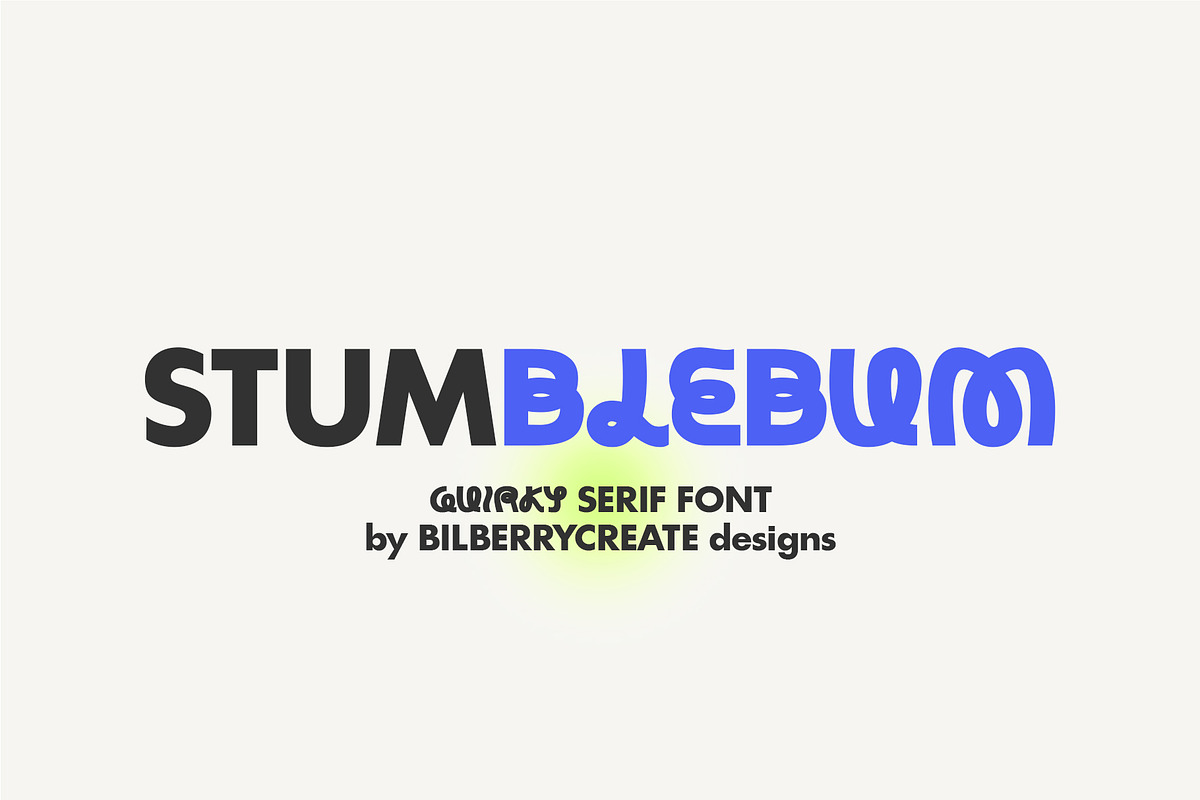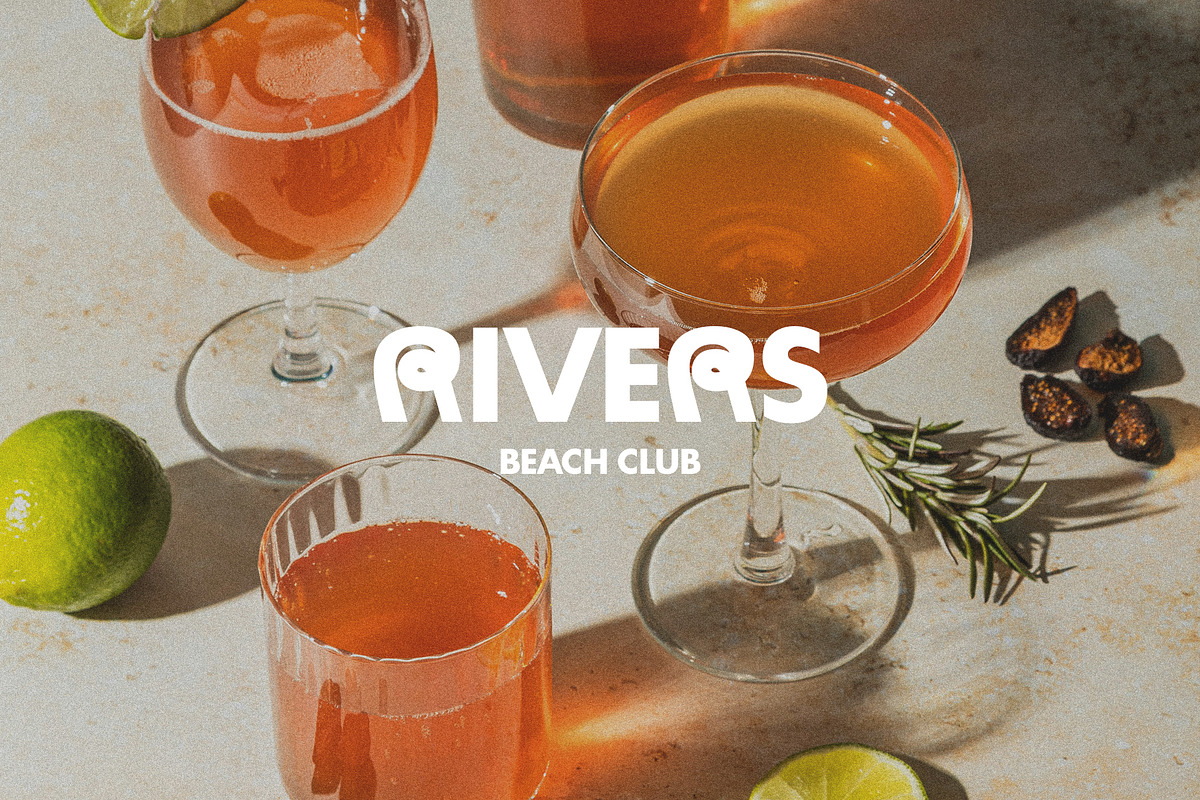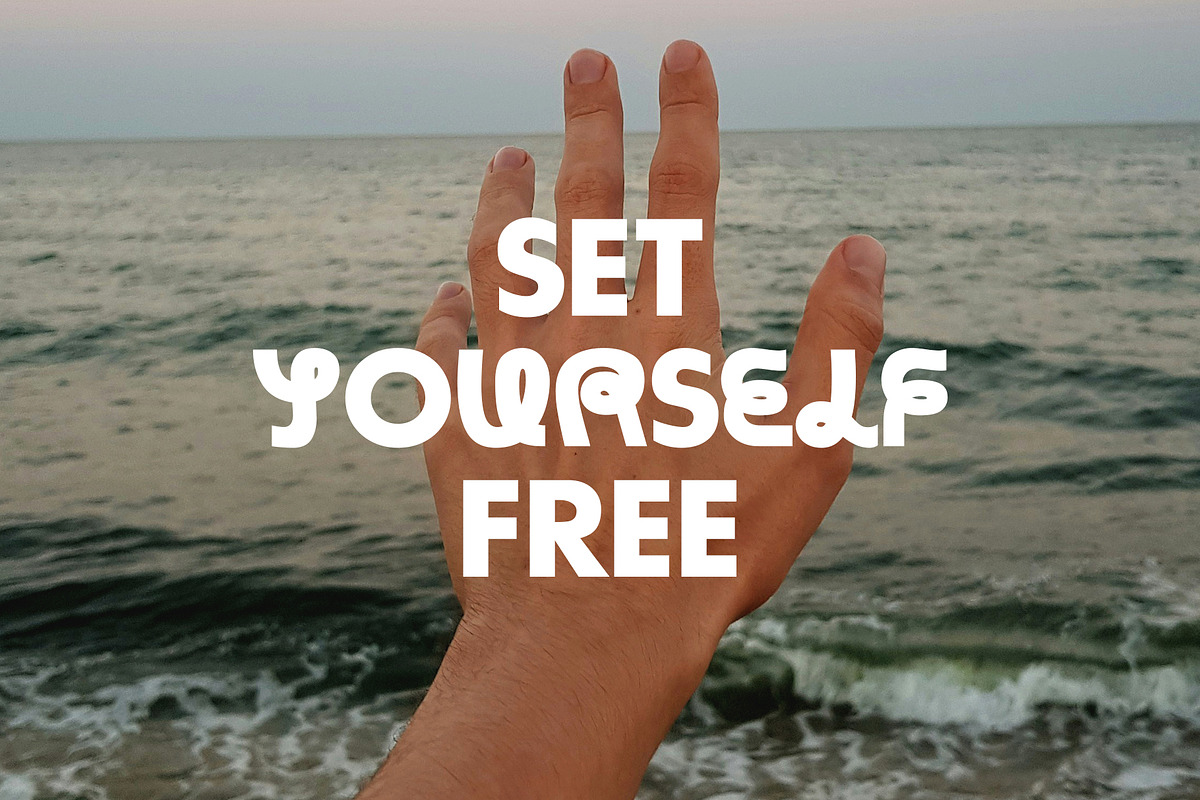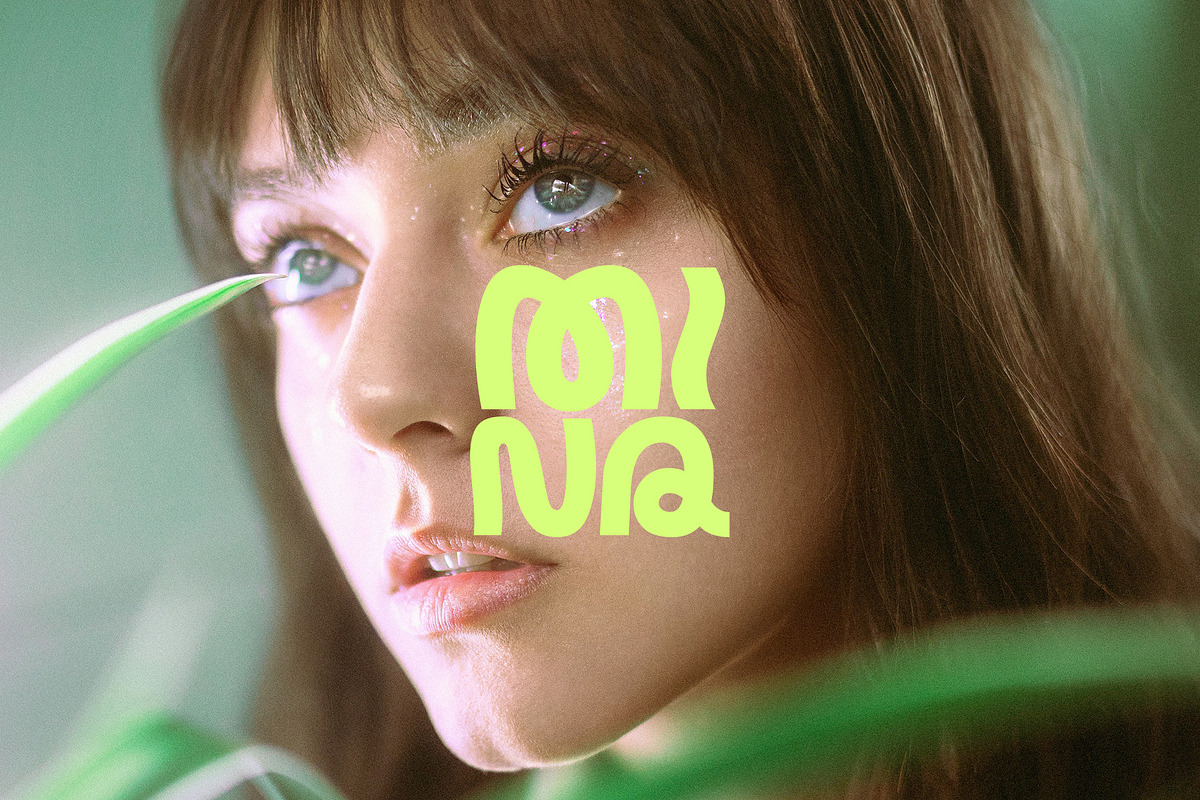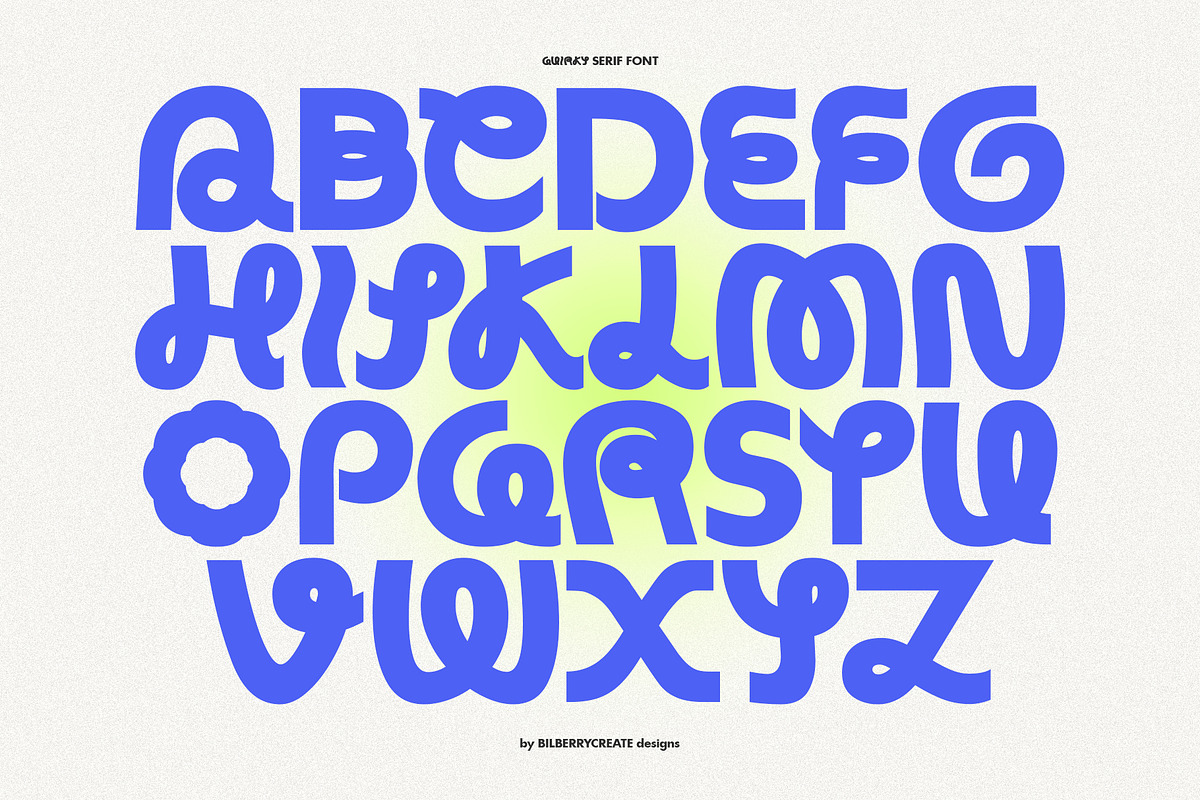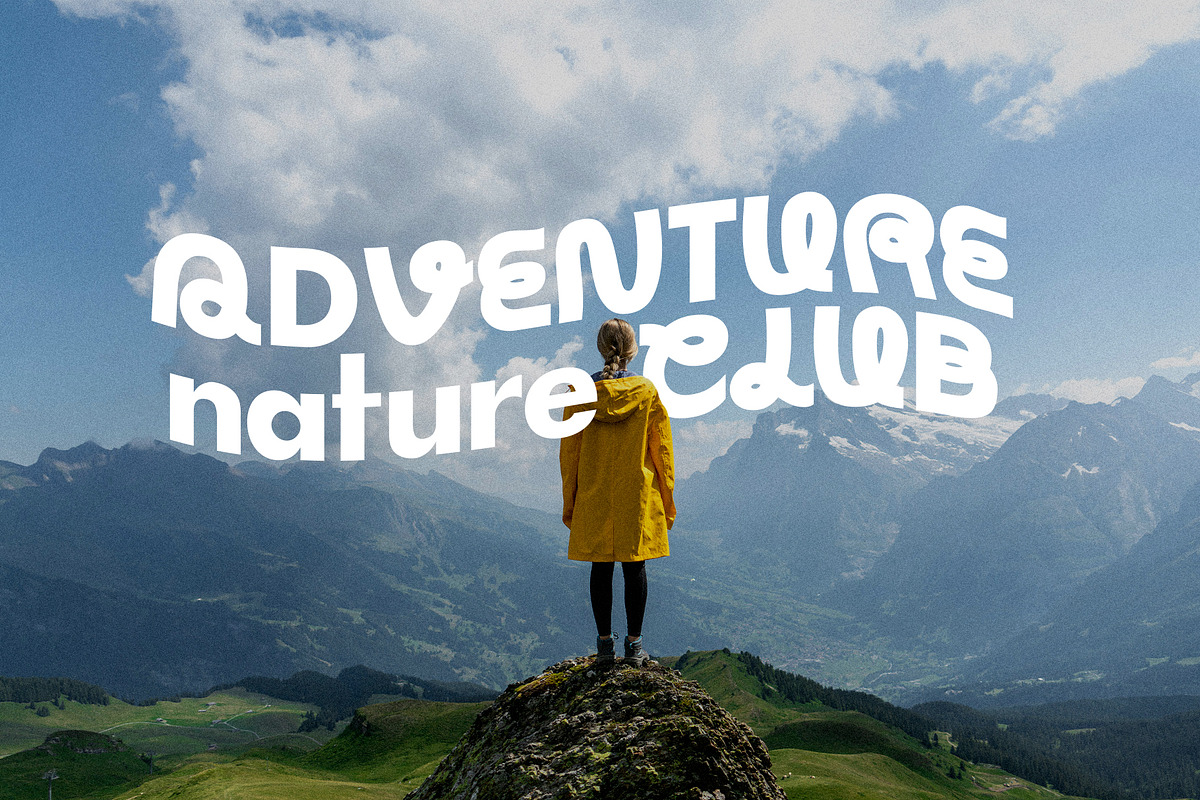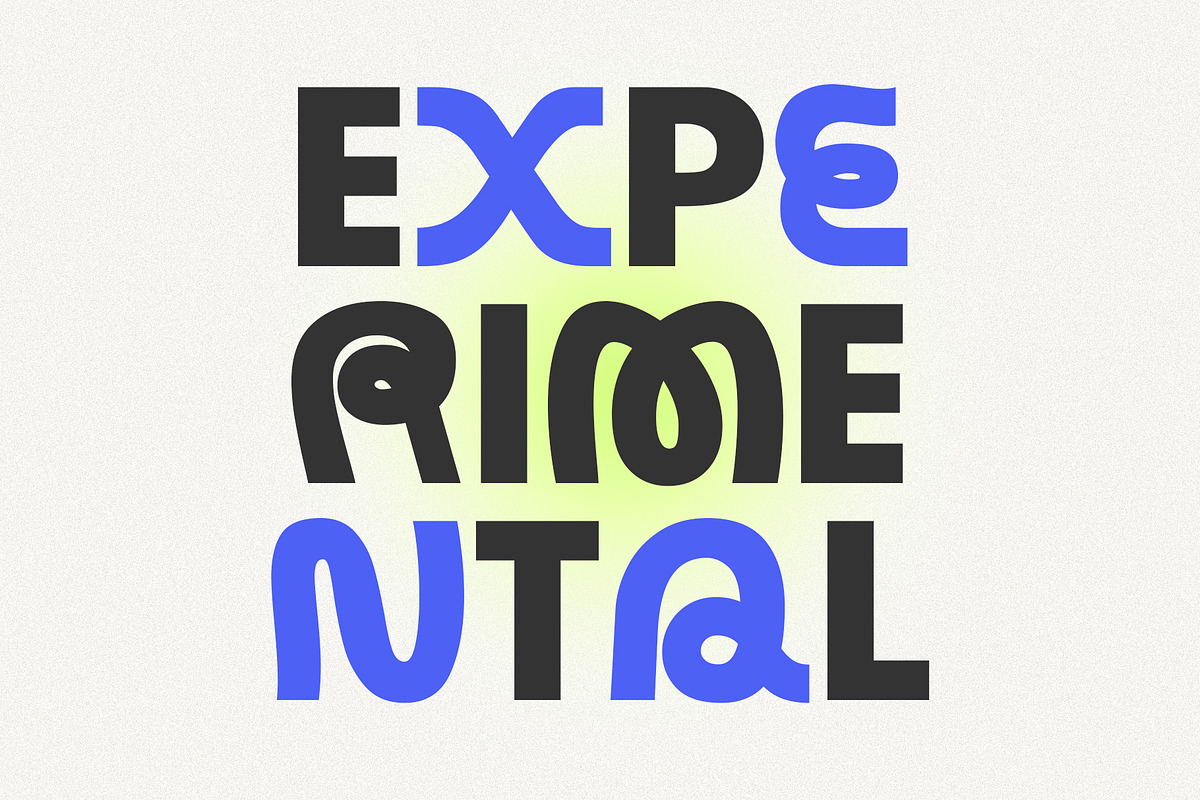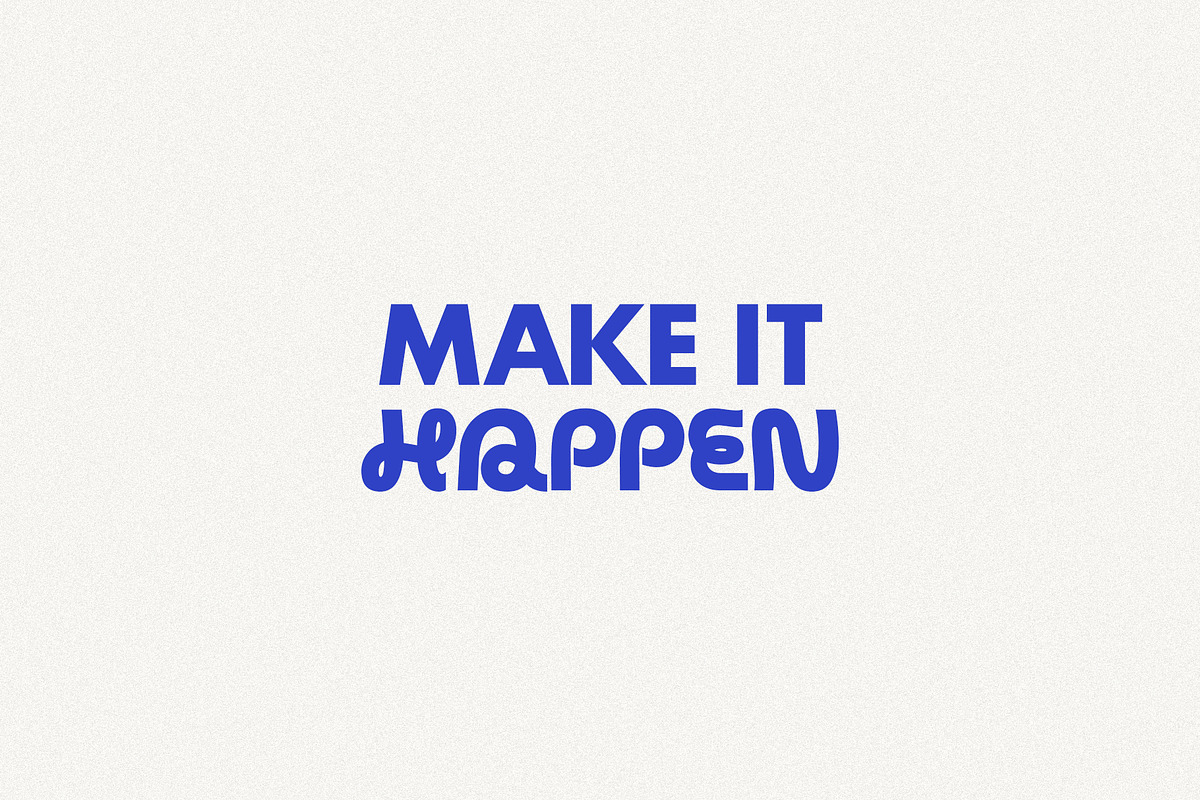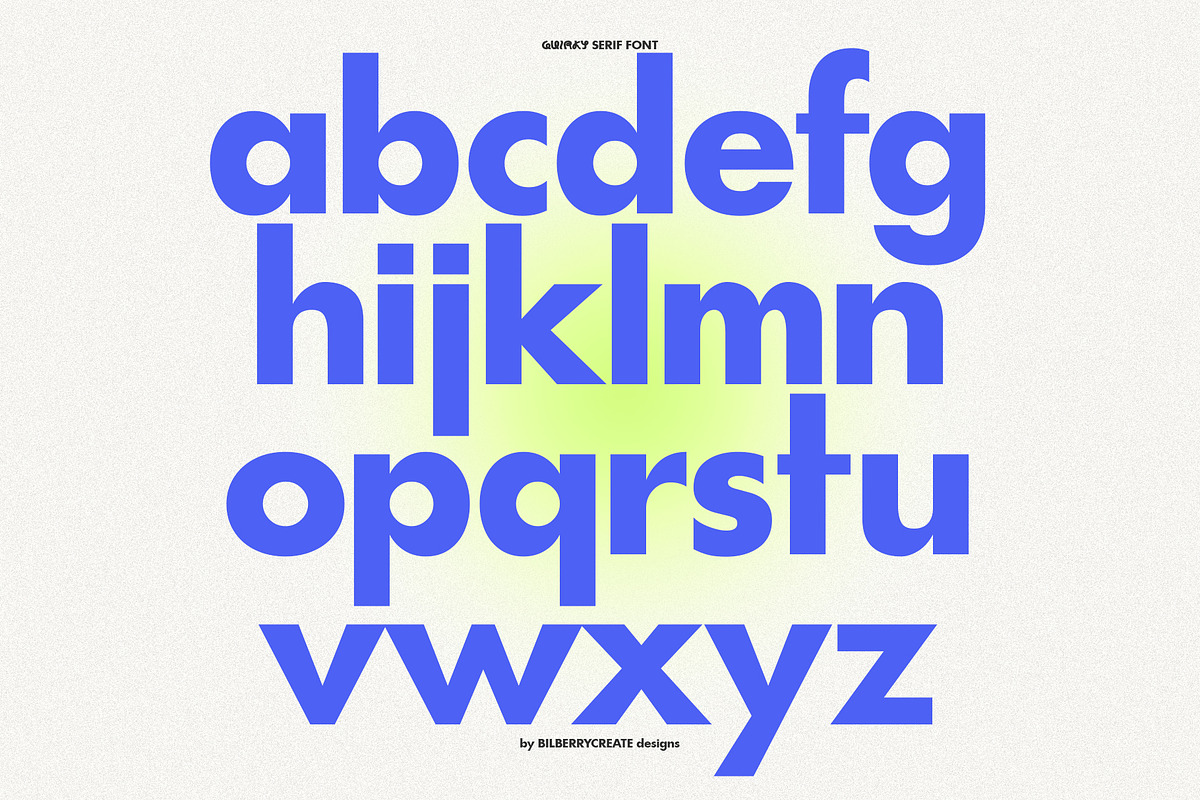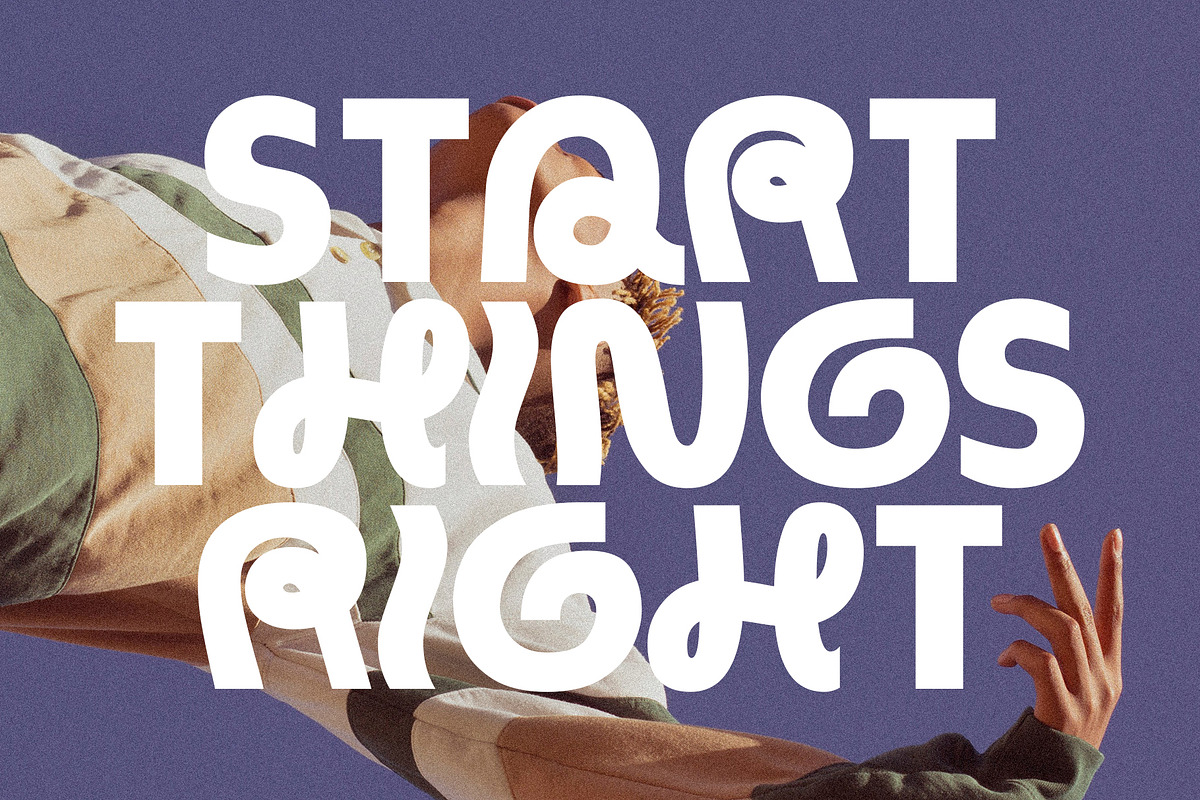
Stumblebum Quirky Serif Font
Stumblebum Quirky Serif Font!
This is a perfect playful font for any project. Be sure to click on the image to see all elements. This product was created to help you make your digital images even more beautiful and unique.